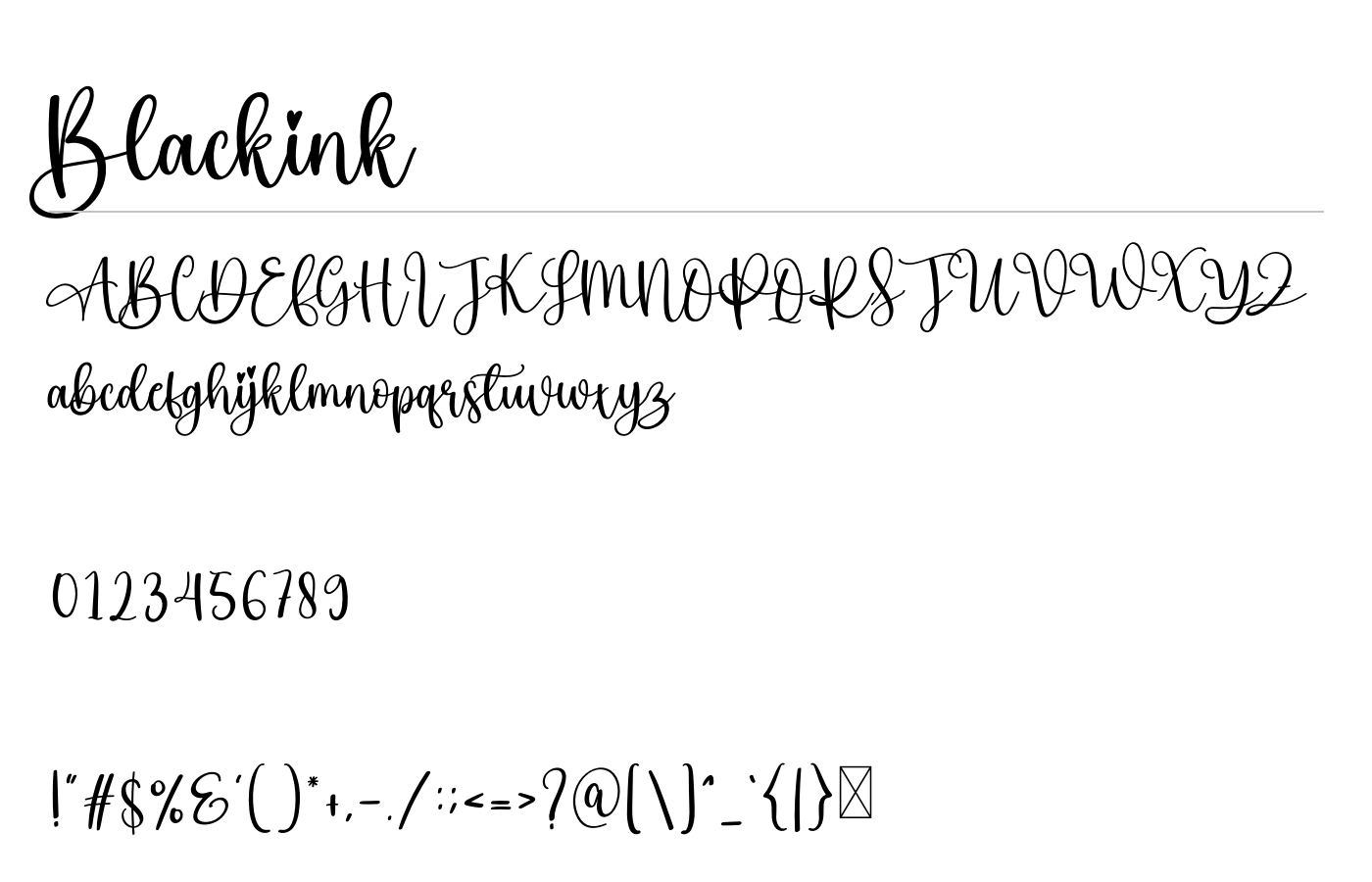
Blackink is a stylish handwritten script font that blends playful charm with elegant flair. Its smooth, flowing strokes and slender letterforms create a warm and inviting feeling, making it perfect for creative branding, invitations, and feminine design projects that seek a personal, handcrafted touch. The font’s light weight and casual curves lend an approachable yet sophisticated vibe ideal for headlines and decorative text.
Blackink Font